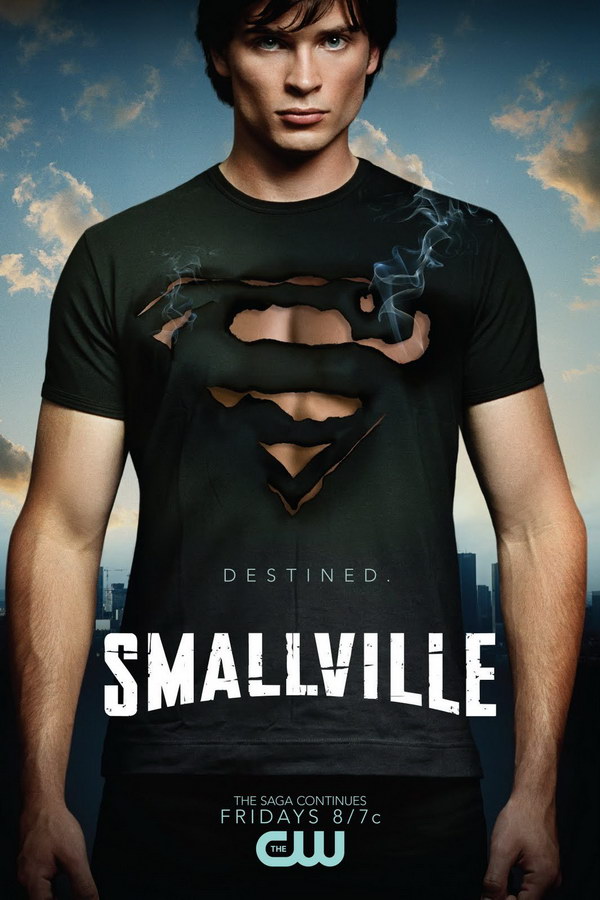
Smallville Font
Fonts in UseSmallville is a television series that aired from 2001 to 2011, following the life of a young Clark Kent as he discovers his superhuman abilities and navigates his way through high school, and college, eventually becoming Superman.
The Smallville logo features a font that closely resembles the Smallville font, which can be downloaded for free from the Fonts Used Section. It includes capital letters, numbers, and a limited selection of punctuation marks. Typing "*" and "~" allows you to create the Superman shield symbol and the Smallville logotype, respectively.